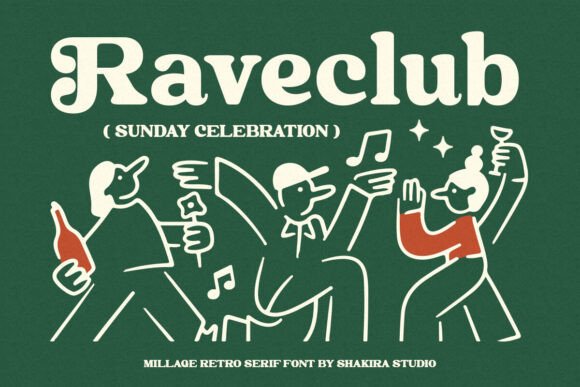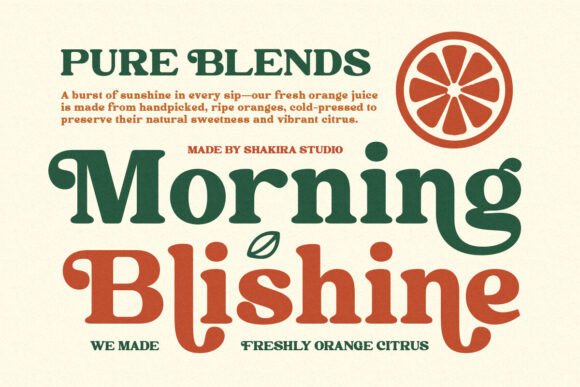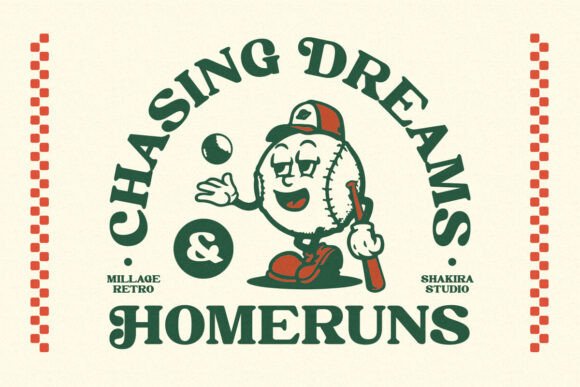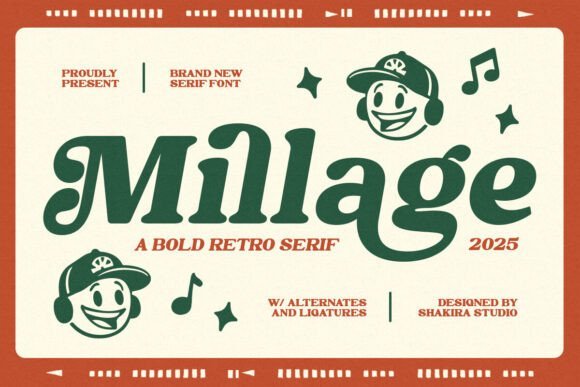
Introduction to Millage Font
Millage is a commanding retro serif typeface that blends bold vintage aesthetics with contemporary versatility.
Featuring both Regular and Italic styles with expressive alternates and ligatures, this font is expertly crafted for eye-catching branding, memorable logos, retro packaging, and poster designs that demand both nostalgia and modern impact With its chunky serifs and dynamic italic variant, Millage delivers exceptional flexibility for brands seeking both vintage authenticity and fresh appeal.
Key Features of Millage Font